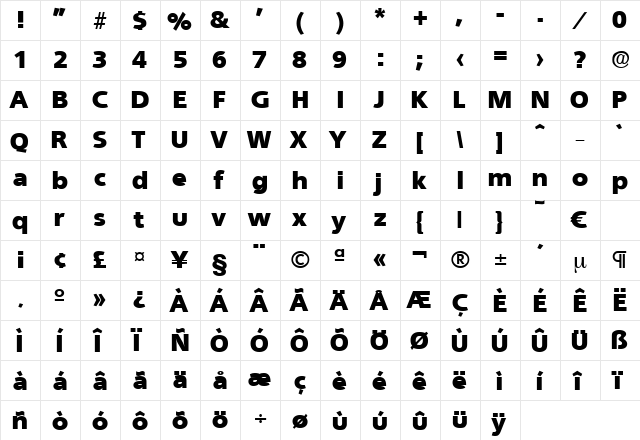
Quebec-Heavy Regular
Design Context for Quebec-Heavy Typeface
Quebec-Heavy is a composed and adaptable typeface that performs quietly and consistently across a wide range of design contexts.
Pro Tip: Use Quebec-Heavy in both headline and body roles to test its range before committing to a single application.